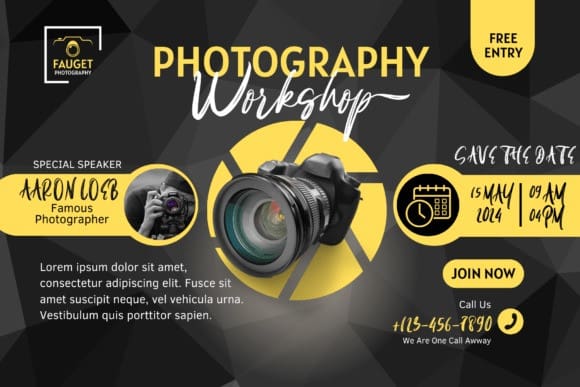
Moon Stars Font
Moon Stars Font, an exquisitely handcrafted brush font. Embracing an authentic and uninhibited feel, this font is synonymous with nature’s charm itself. It infuses an element of joy and organic beauty into the designs you bring to life, harmoniously blending with a diverse range of design requirements. With Moon Stars, you’re not just choosing a font, you’re opting for a versatile tool that adds a spark of character and distinctiveness to your creative endeavor.